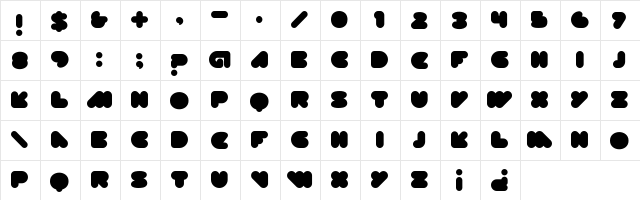
DISKOPIA2.0 Black
Design Context for DISKOPIA2.0 Typeface
DISKOPIA2.0 is a composed and adaptable typeface that performs quietly and consistently across a wide range of design contexts.
Pro Tip: Use DISKOPIA2.0 in both headline and body roles to test its range before committing to a single application.